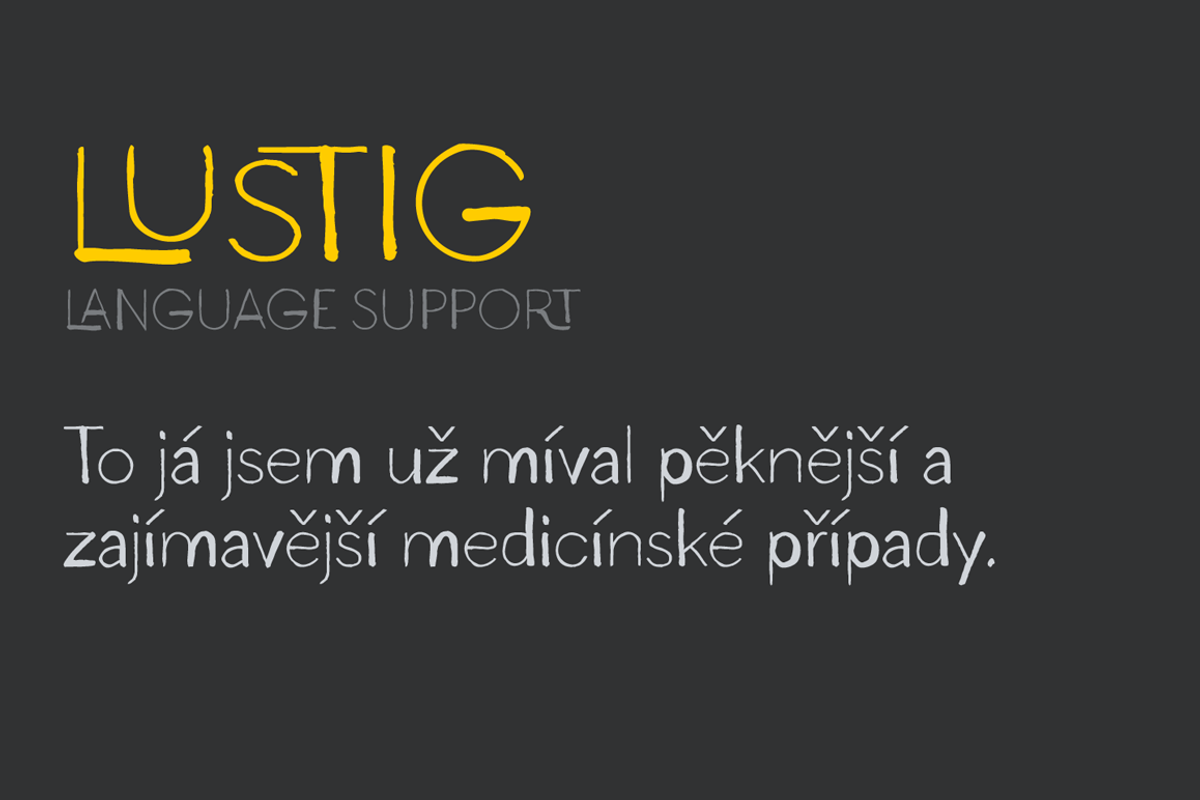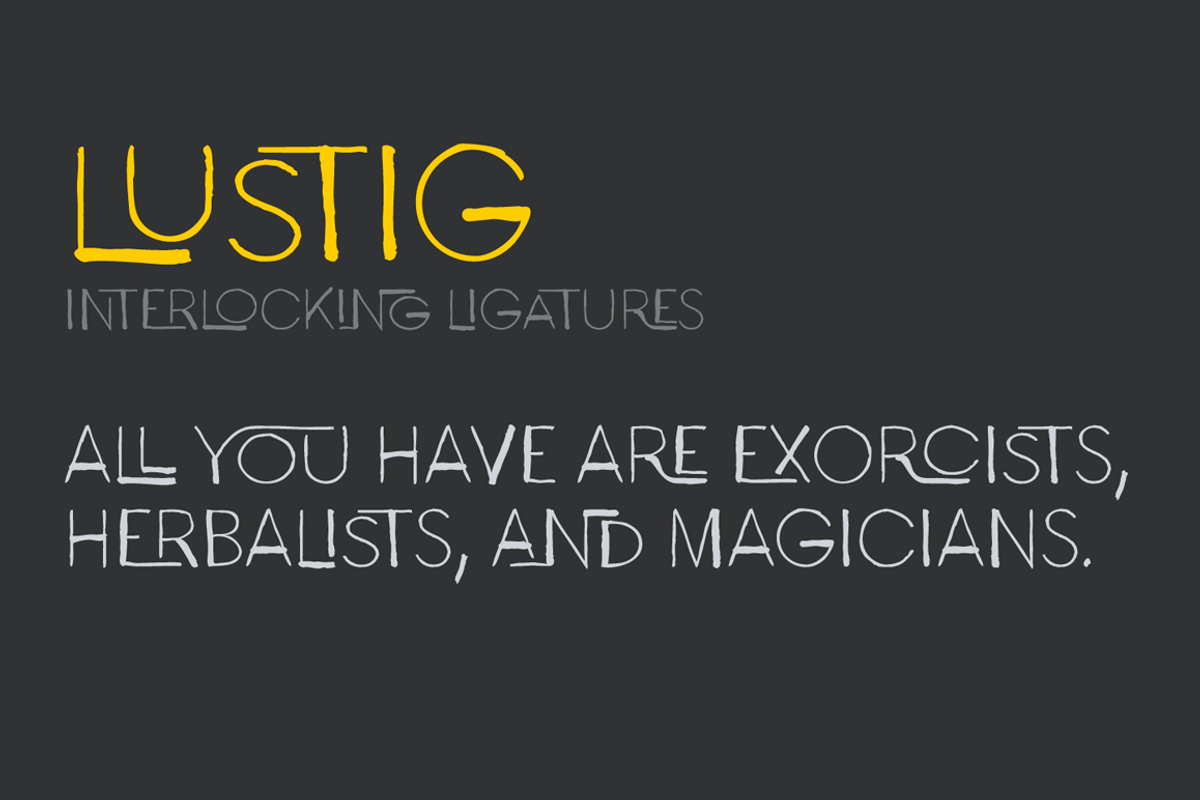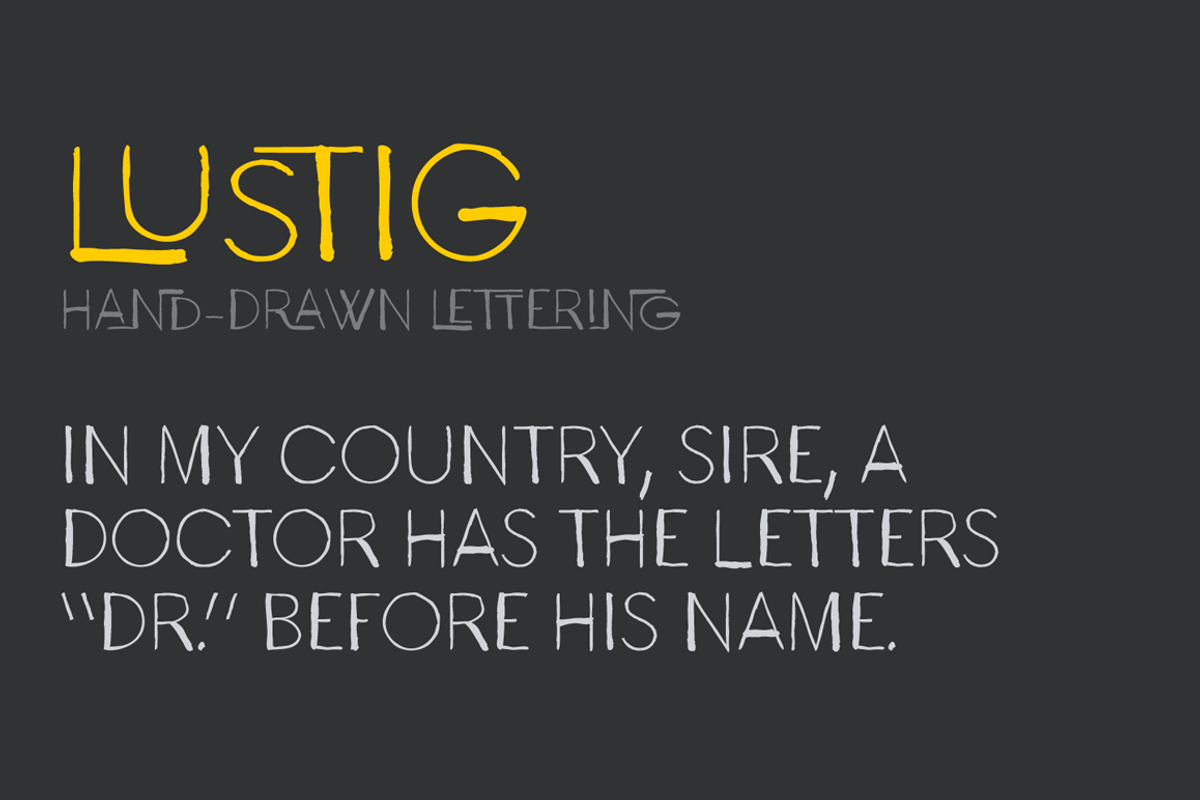
Lustig Font
Lustig Font by Juraj Chrastina is a font selected for branding, posters, packaging, typography.
- In addition it's also a lively hand-lettered font equipped with playful interlocking ligatures.
Why Lustig Font is worth a look
Lustig Font by Juraj Chrastina fits naturally into Branding, posters, packaging, typography.